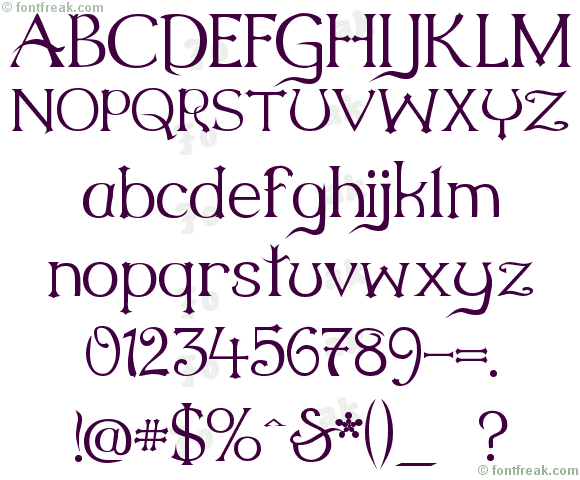
MilleniGem
MilleniGem by Gemfonts is a striking display font that seamlessly blends various styles into a cohesive design. Its unique character set features a mix of sharp angles and smooth curves, creating an aesthetic that feels both modern and timeless. The font exhibits a medium stroke weight with subtle contrast, allowing it to stand out without overwhelming the viewer. The spacing is well-balanced, ensuring readability while maintaining an artistic flair, which makes it suitable for various creative applications.
This versatile font is ideal for a range of use cases. It shines in wedding invitations, where its elegance can help set the tone for a romantic occasion. Additionally, it works beautifully for movie posters, lending a sense of drama and intrigue. Restaurant menus can benefit from its stylish appearance, enticing patrons with a visually appealing presentation of their offerings. Moreover, MilleniGem is a great choice for branding projects, enabling small business owners to create memorable logos that resonate with their target audience. Content creators will also find it useful for social media graphics, as its distinctive style can capture attention in crowded feeds.
The target audience for MilleniGem includes graphic designers looking for fresh, innovative fonts, small business owners aiming to enhance their branding, and content creators in search of eye-catching typography.
What sets MilleniGem apart is its ability to merge various influences into a single typeface, making it a standout choice for those who want to convey personality and creativity. With the MilleniGem font free download, you can easily incorporate this unique typeface into your projects, allowing your designs to leave a lasting impression.